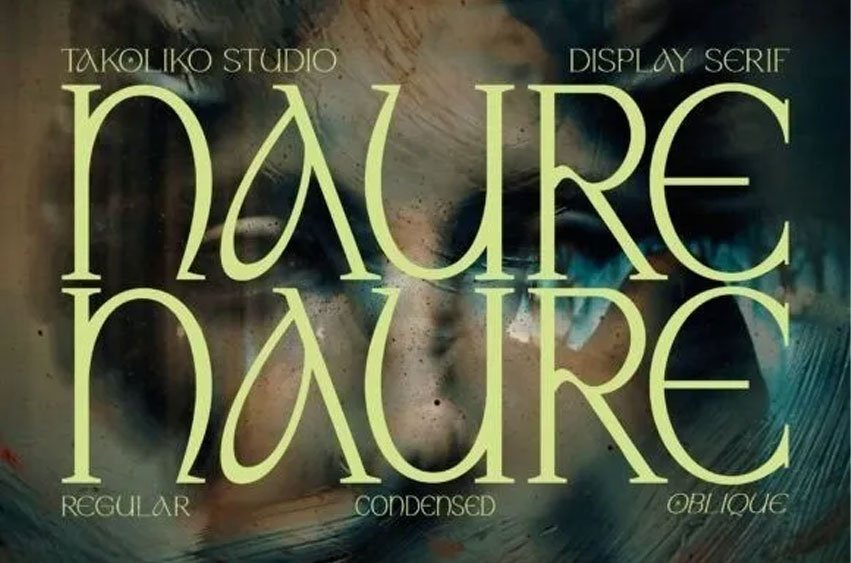
Naure Font is a vintage classy serif typeface, with a little roman soul on it. It comes with regular, condensed, and oblique style. It have a curve that give a unique yet elegant feel at the same time. The strong characteristic makes it suitable for attention grabbing design projects such as headlines, posters, social media displays, editorials, book cover, invitation, etc.